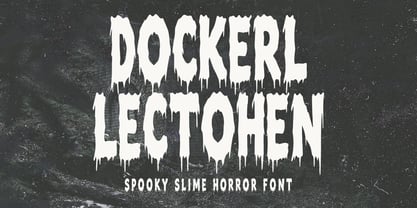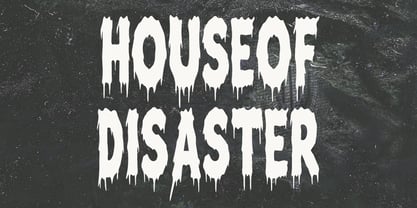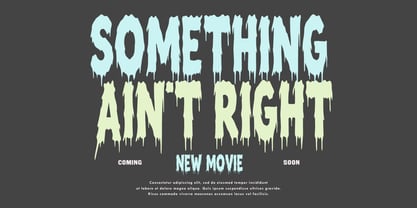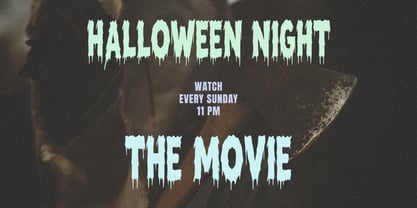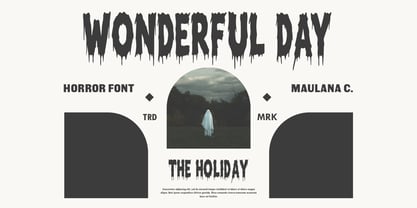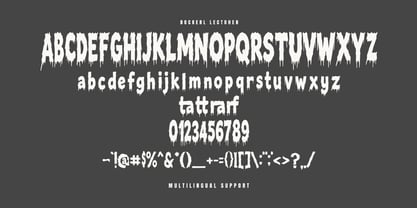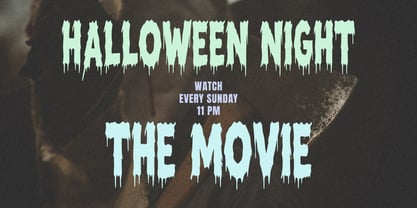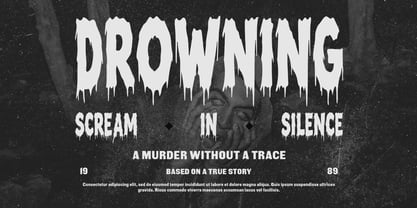
MC Dockerl Lectohen
by Maulana Creative
The MC Dockerl Lectohen Font Family was designed by Gilang Maulana and published by Maulana Creative. MC Dockerl Lectohen contains 1 styles. More about this family
Dockerl Lectohen is a spine chilling display font designed to bring a "dripping slime" aesthetic to your creative projects. Characterized by its tall, condensed letterforms and dramatic melting effects, this typeface perfectly captures the essence of classic horror cinema and 90s goosebumps-style thrillers. The font includes a full set of uppercase and lowercase characters, numerals, and punctuation, all featuring a consistent "ooze" texture. It is an ideal choice for Halloween party invitations, horror movie posters, spooky book covers, or any branding project that requires a dark, macabre, and supernatural touch.
Designers: Gilang Maulana
Foundry: Maulana Creative